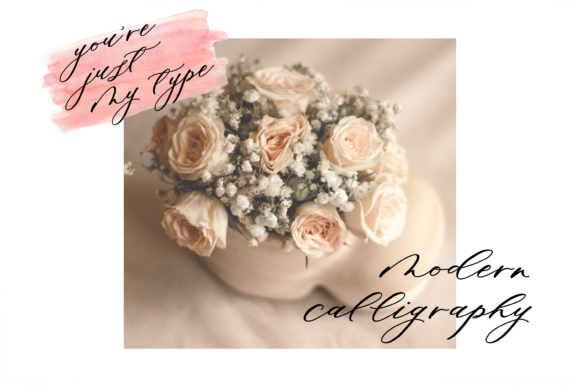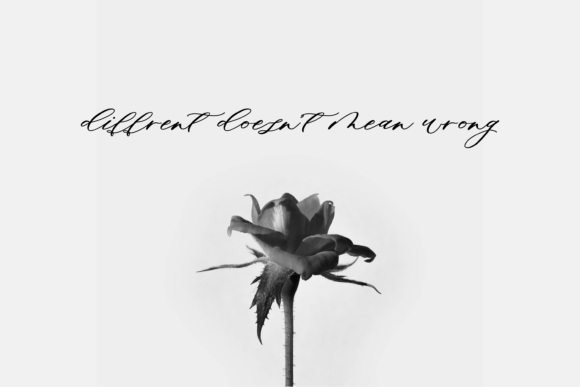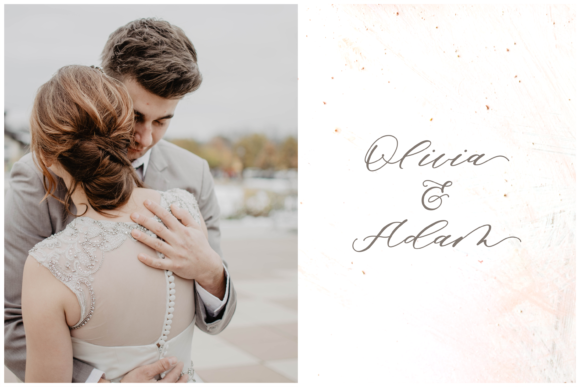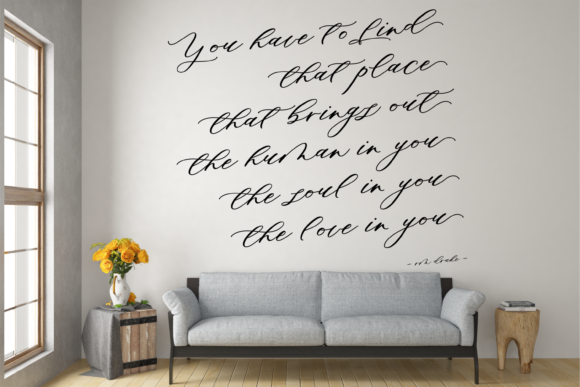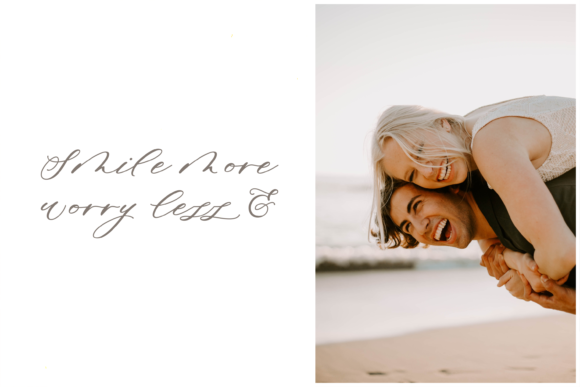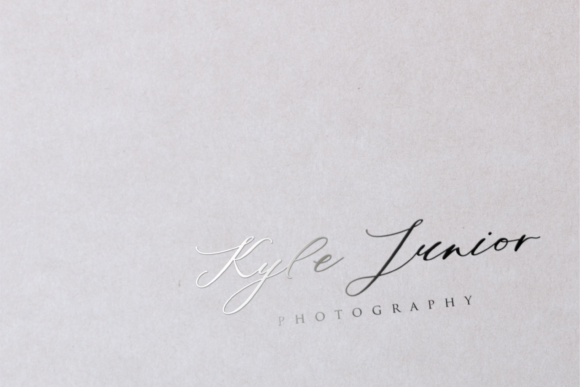
Introduction to Minimalist Script Font
The Minimalist is a beautiful script font with an Italian feel.
It’s perfect for every design that needs an upscale and chic look .
Key Features of Minimalist Script Font